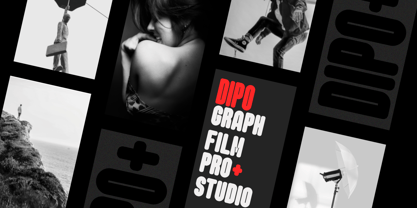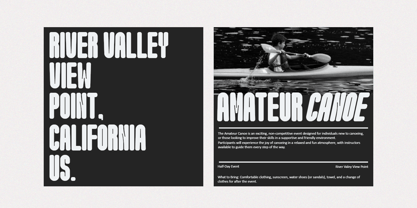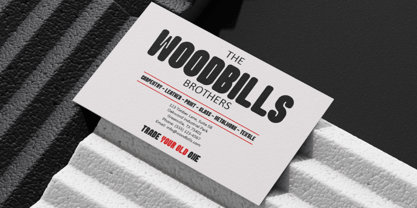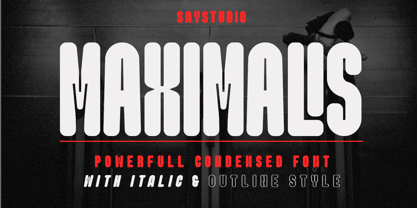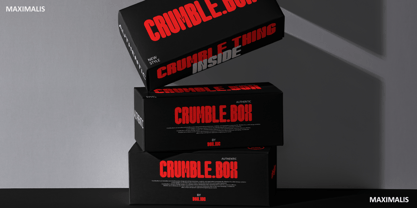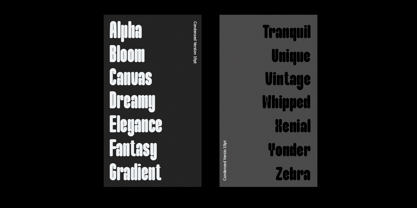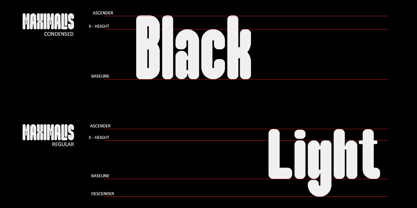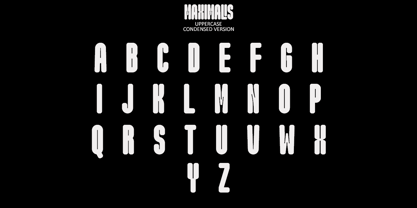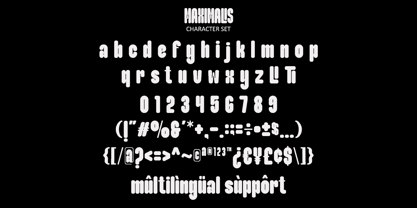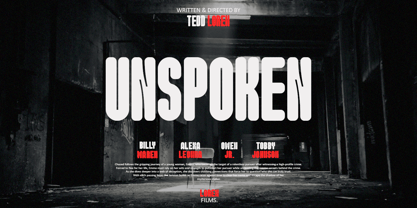
Maximalis
La familia tipográfica Maximalis fue diseñada por Mussyayin y publicada por Say Studio. Maximalis contiene 8 estilos y opciones de paquete familiar.
Maximalis is a condensed sans-serif typeface created for use in bold headlines with distinctive shapes that make it a display font for easy reading in contemporary use. Available in regular, condensed, outline, and italic styles, the shapes are easy to read and expressive. Its glyph catalog provides an easy-to-compose system for Latin with a tall x-height and tight line spacing.
Maximalis is perfect for all brands, logos, magazines, films. Different weights give you full scope to explore a wide range of applications, while the outlined font gives a real modern feel to any project
Maximalis Typefamily includes 8 font formats:
• Maximalis Regular
• Maximalis Italic
• Maximalis Outline
• Maximalis Outline Italic
• Maximalis Condensed
• Maximalis Condensed Italic
• Maximalis Condensed Outline
• Maximalis Condensed Italic